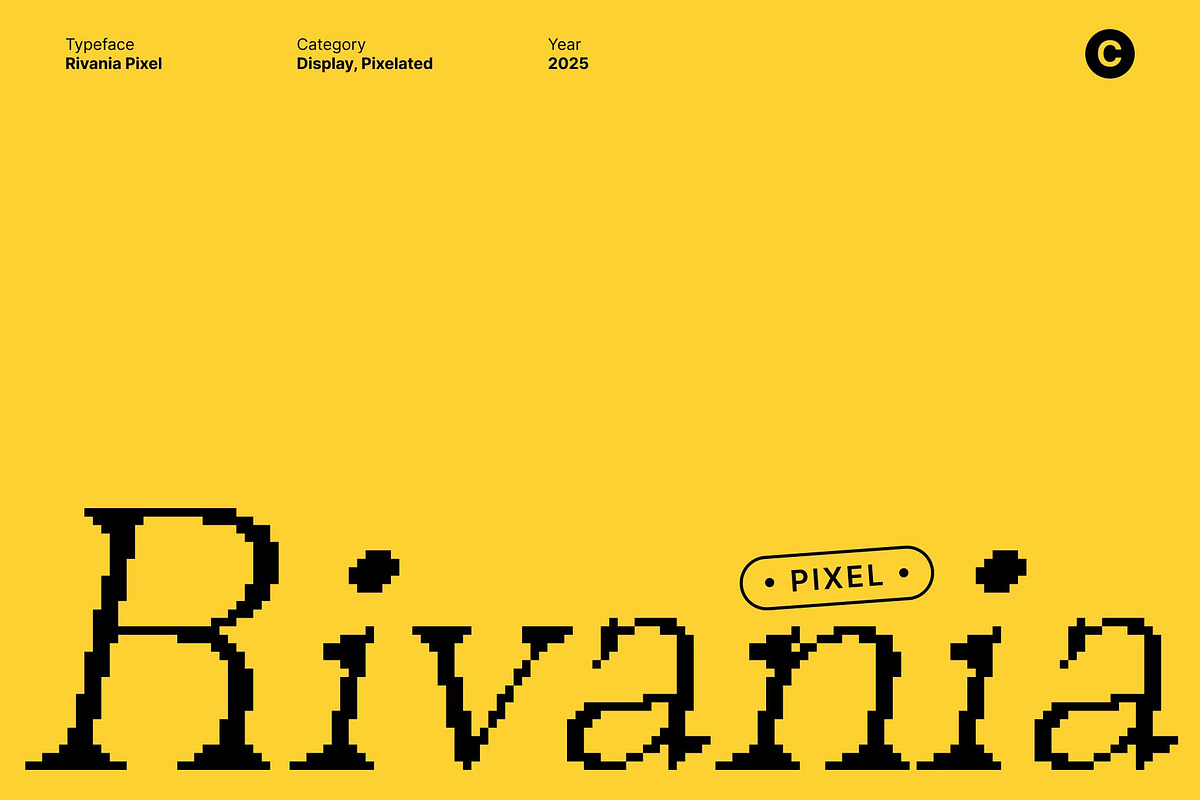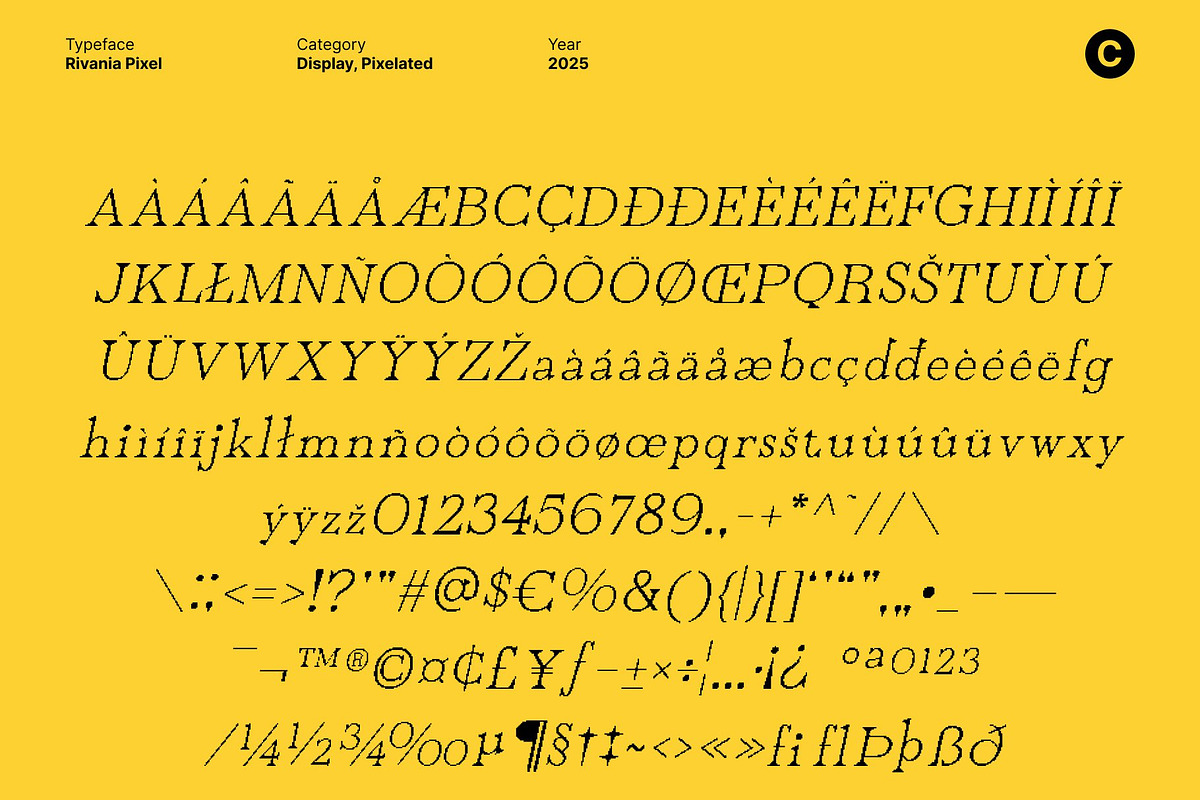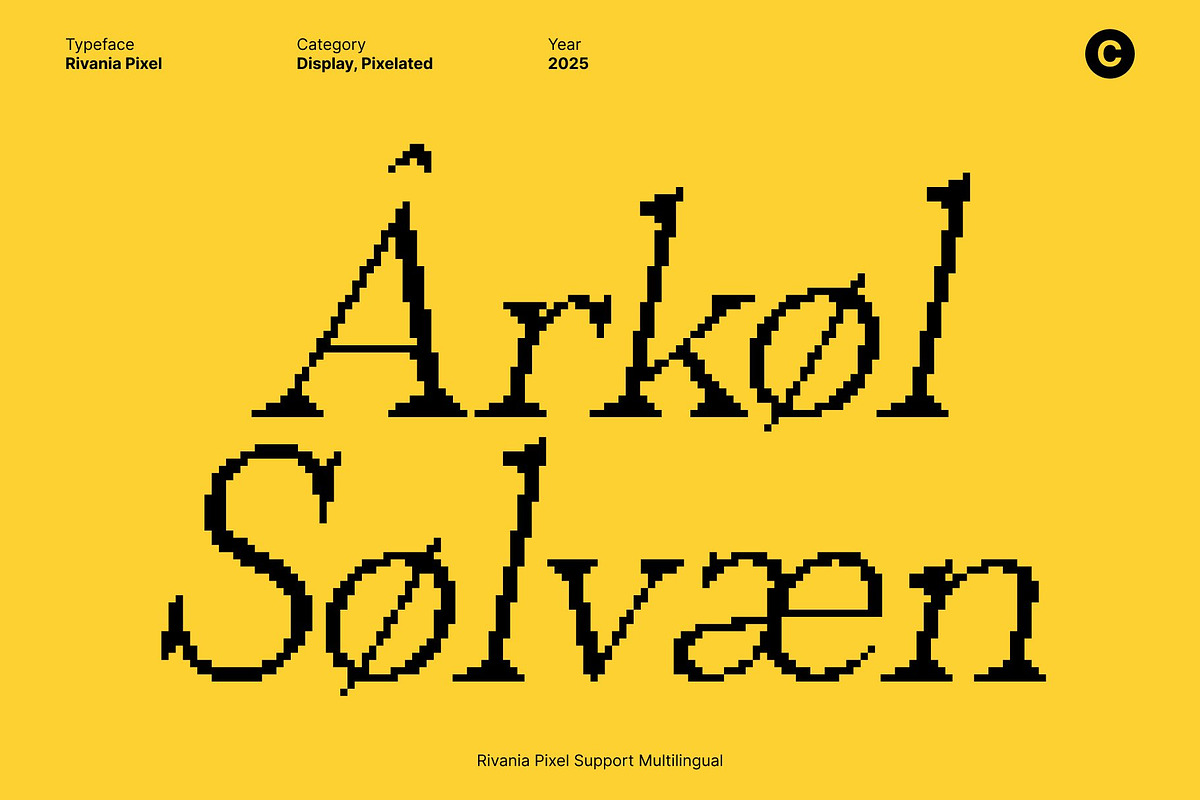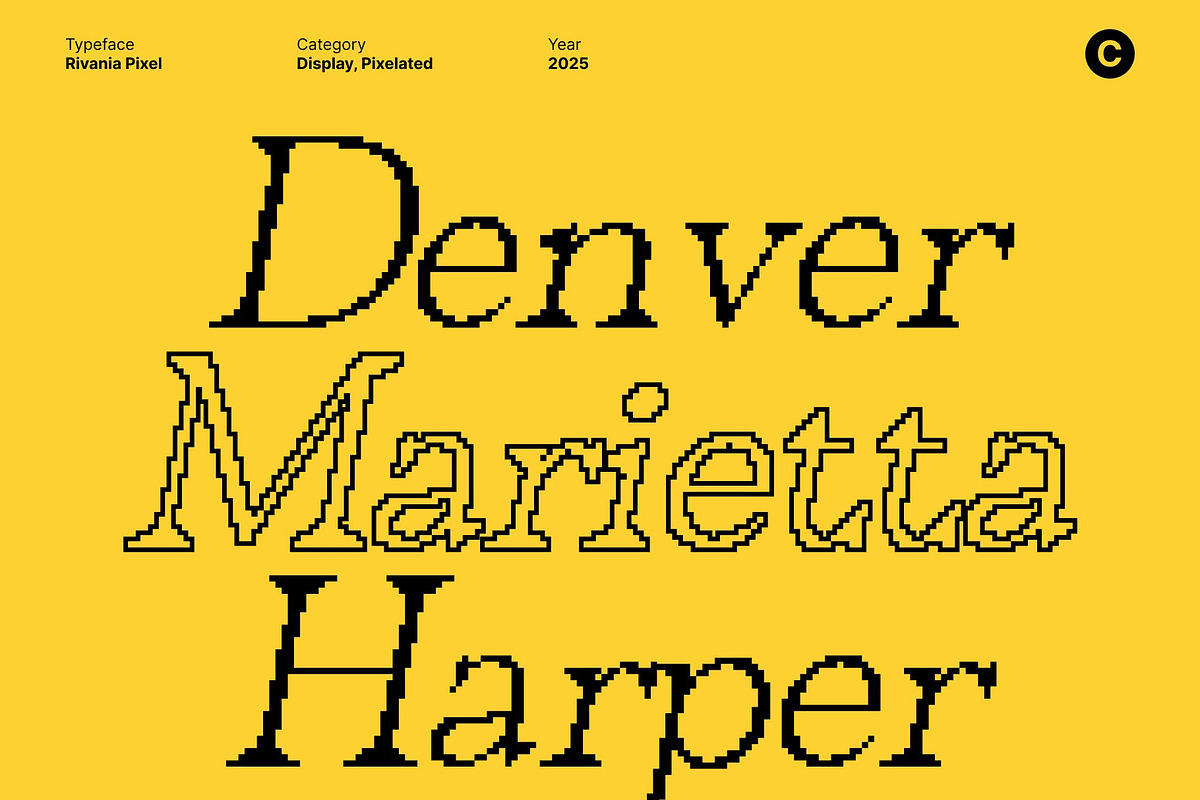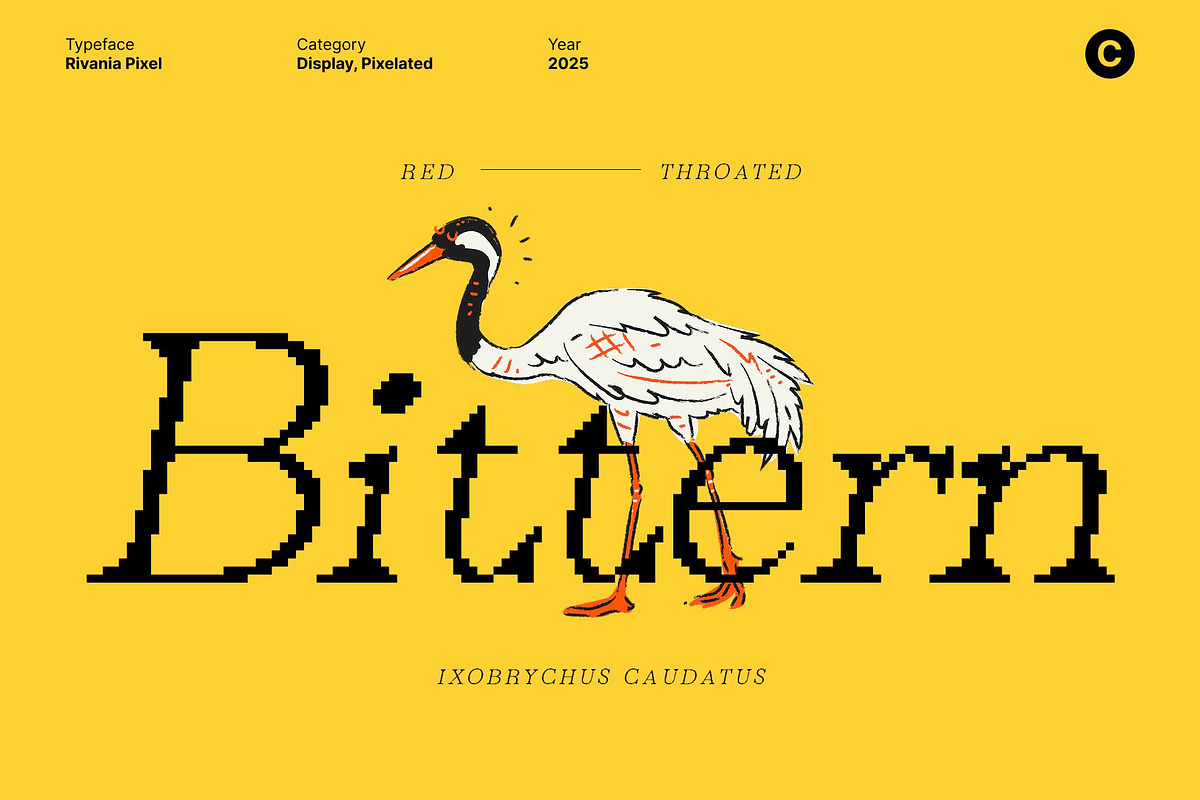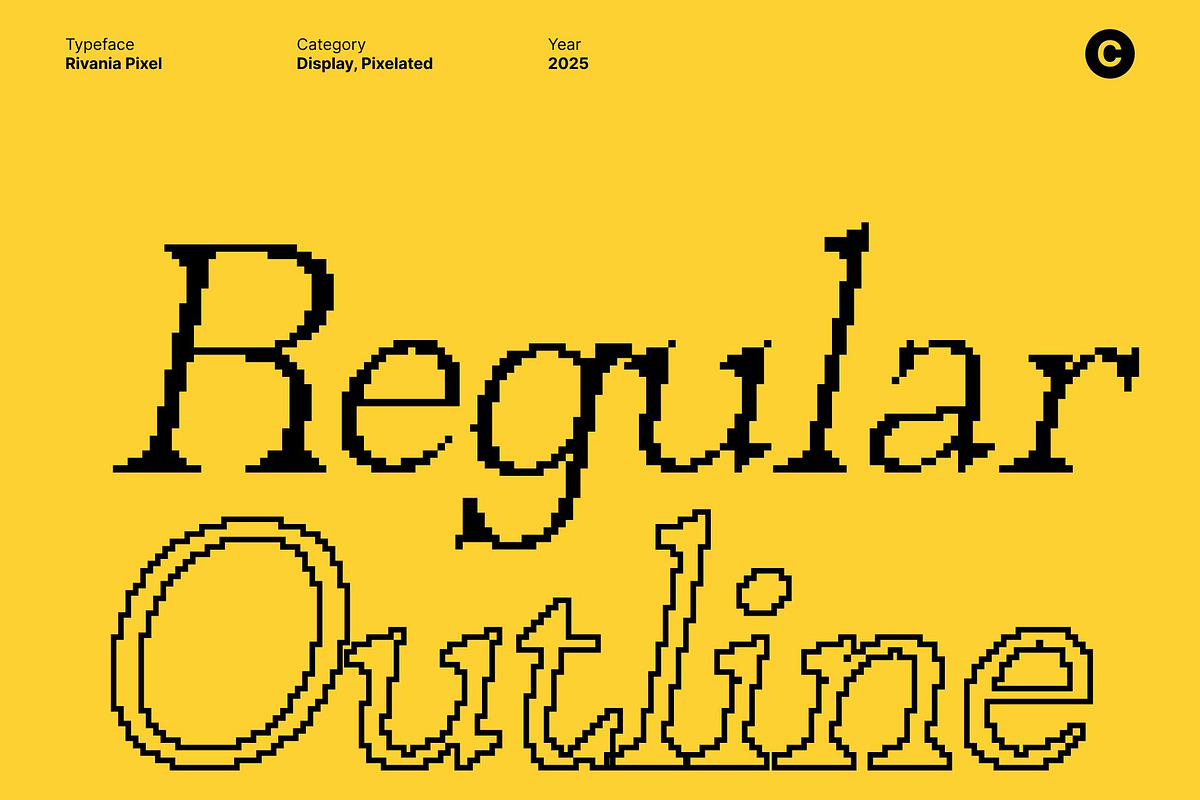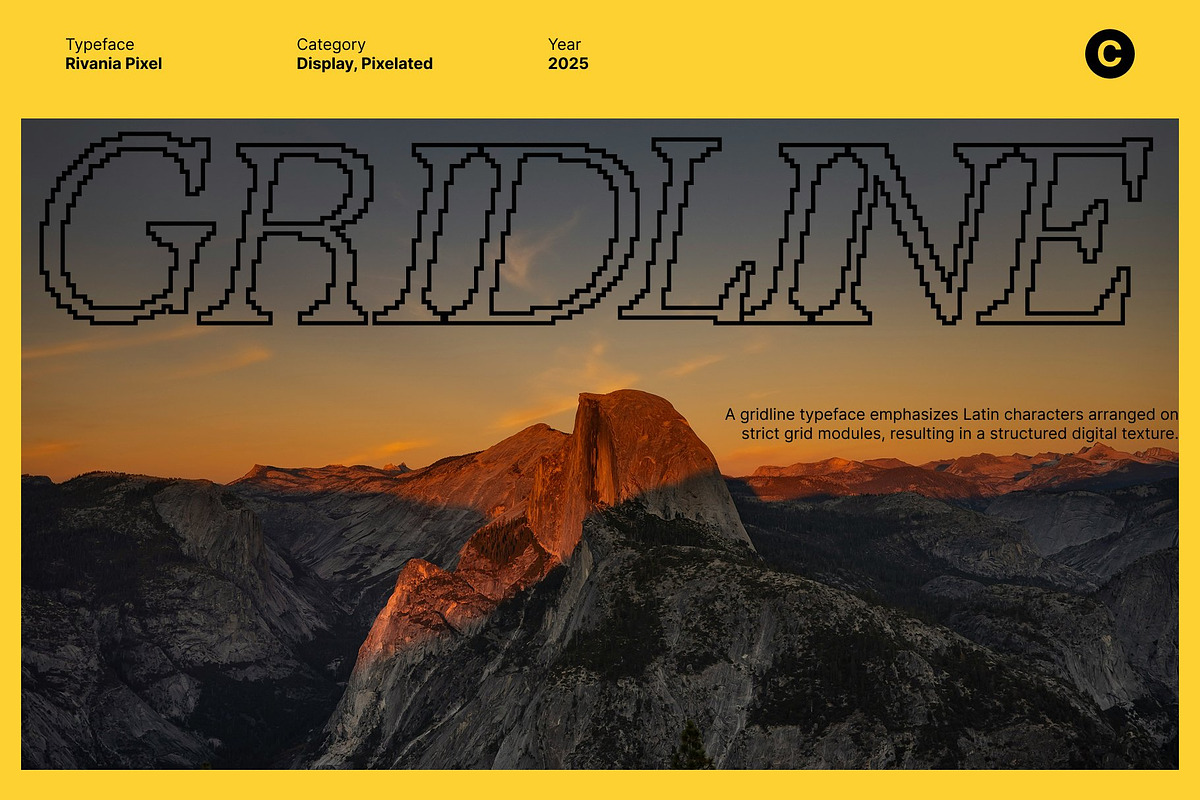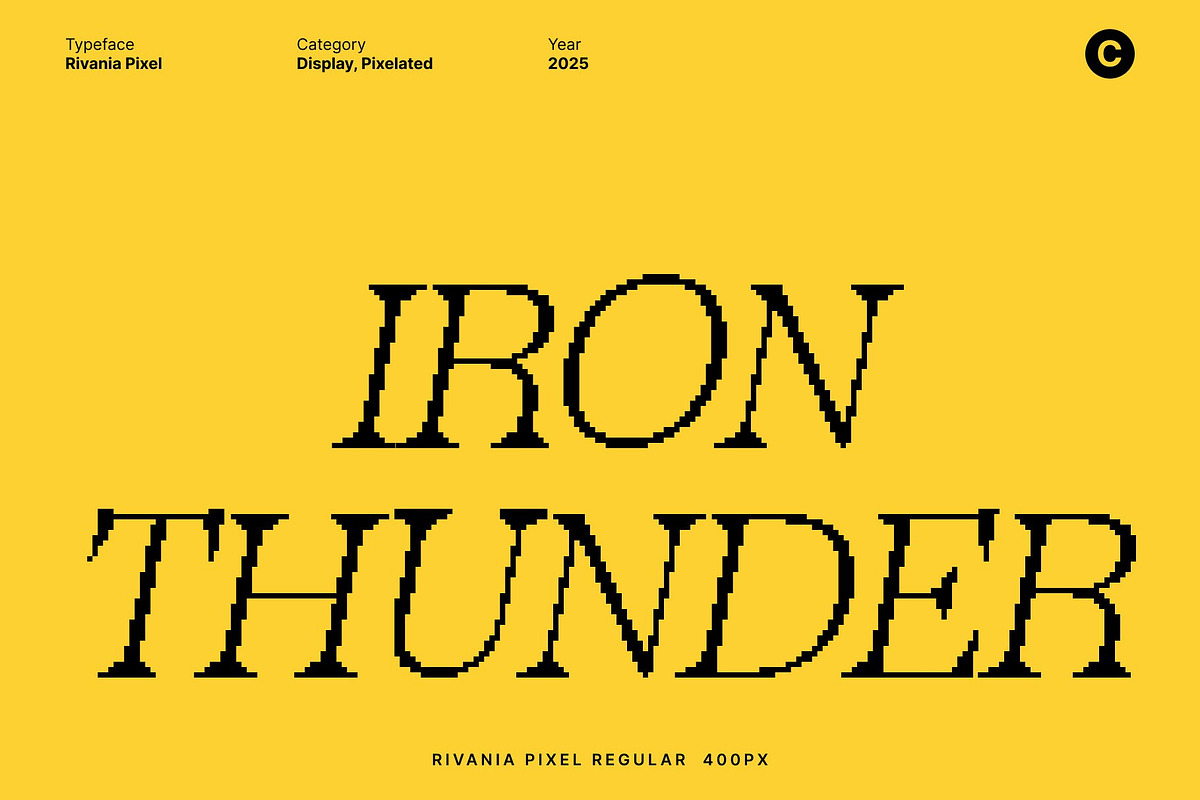
Rivania Pixel
Rivania Pixel – Retro Serif Pixel Font with Modern Style
A Nostalgic Serif with 8-Bit Charm This is brings a refreshing fusion of classic serif retro pixel aesthetics. Inspired by the iconic 8-bit arcade era, this font transforms traditional serif structure into a charming pixelated form, capturing both nostalgia and modern creativity.
Retro Personality with Modern Versatility While this font embraces the spirit of old-school video games, its serif foundation adds a refined, structured feel. This balance makes the font suitable not only for playful designs but also for more polished, digital-forward layouts. Use it to inject personality into game titles, posters, websites, or brand identities, giving your project a unique blend of retro charm and modern clarity.
Perfect for Digital Branding and Creative Displays Designed to stand out, this font thrives in bold display settings. Its pixel-serif construction enhances readability at larger sizes while adding texture and character to your visual compositions. This makes it an ideal choice for digital branding, UI titles, social media graphics, creative posters, and pixel-art projects that seek to combine nostalgia with innovation.
A Unique Pixel Serif for Eye-Catching Visuals With its nostalgic foundation and contemporary versatility, this font offers a perfect balance of retro gaming aesthetics and modern design appeal. Whether you’re creating a thematic game interface, a retro campaign, or a standout digital layout, this pixel-serif font brings personality, charm, and unmistakable visual impact.